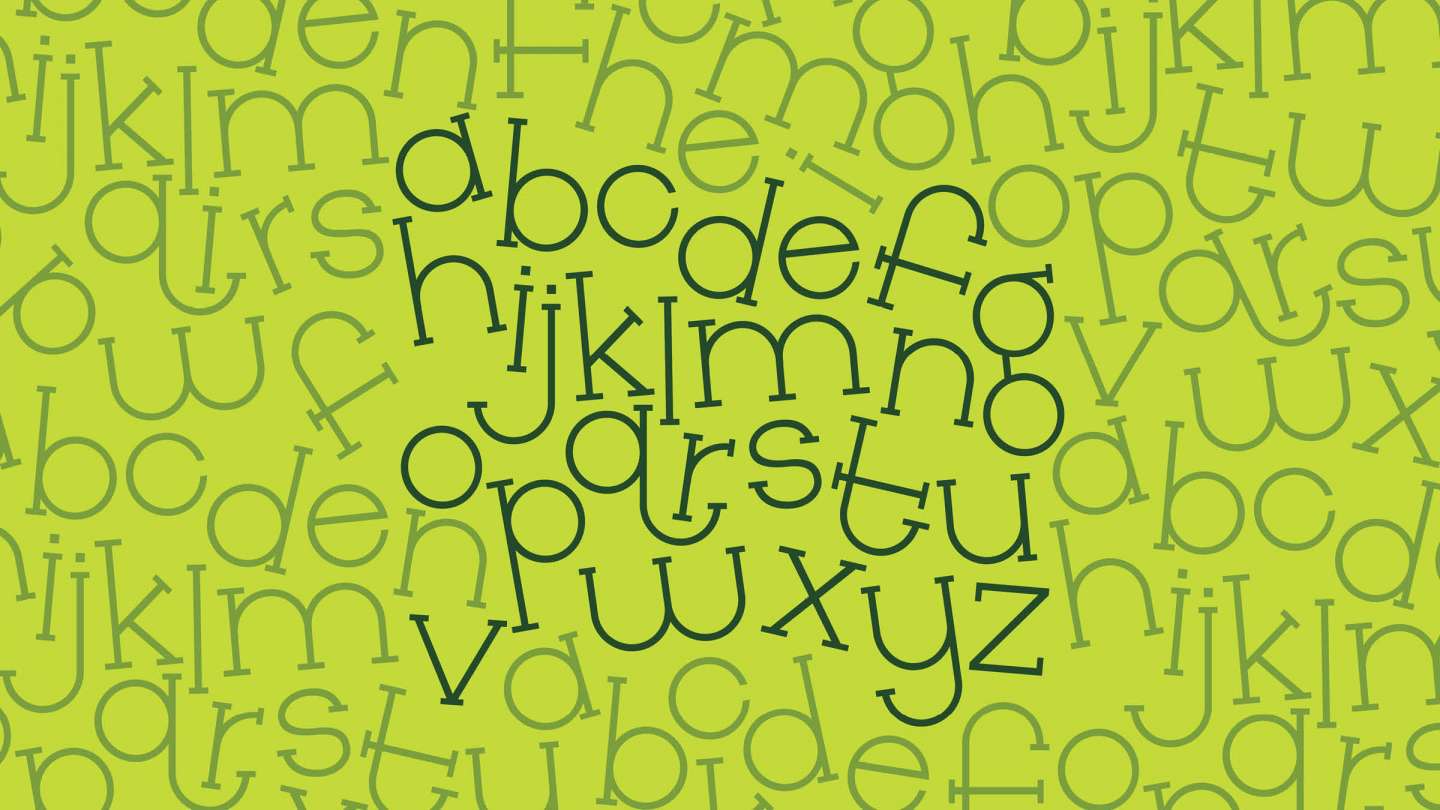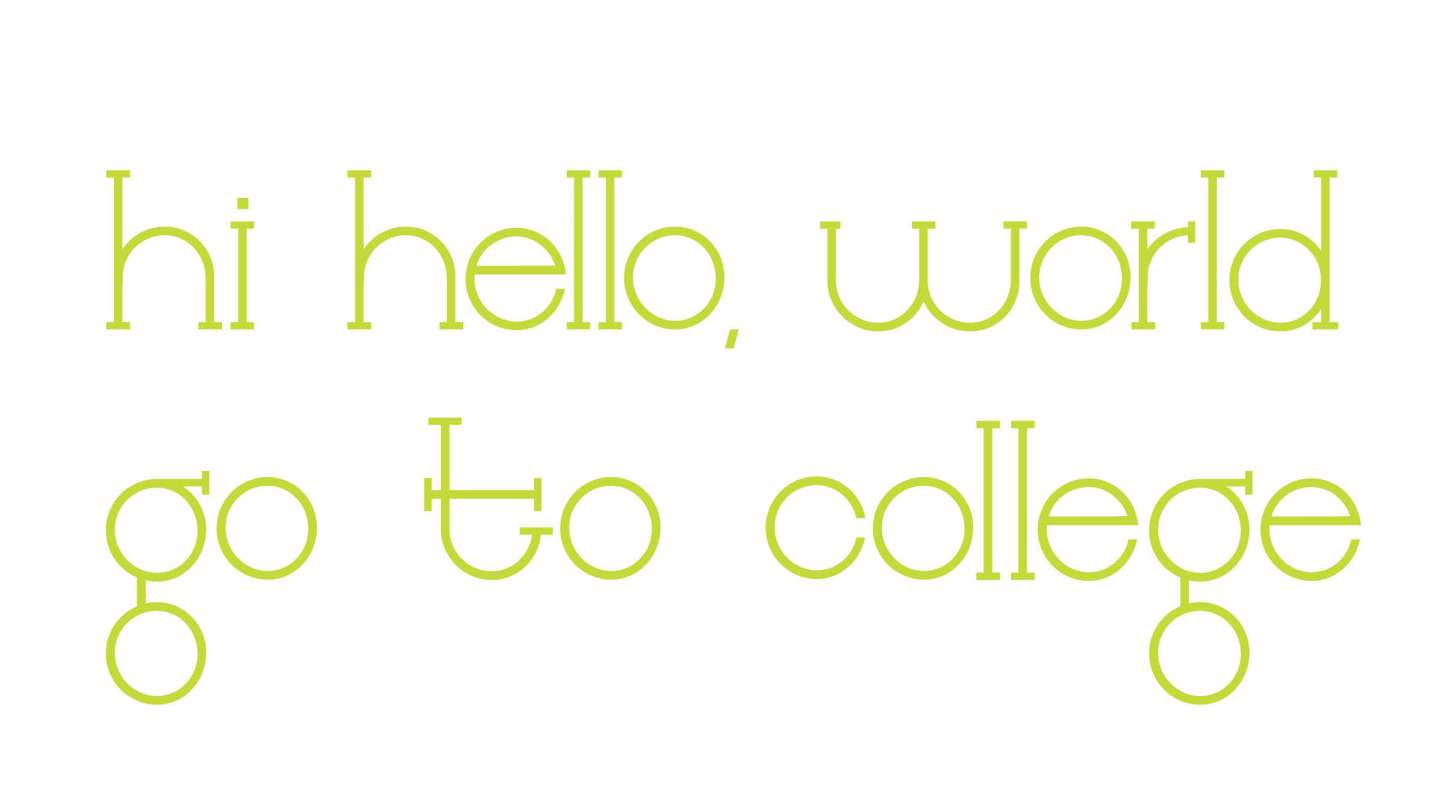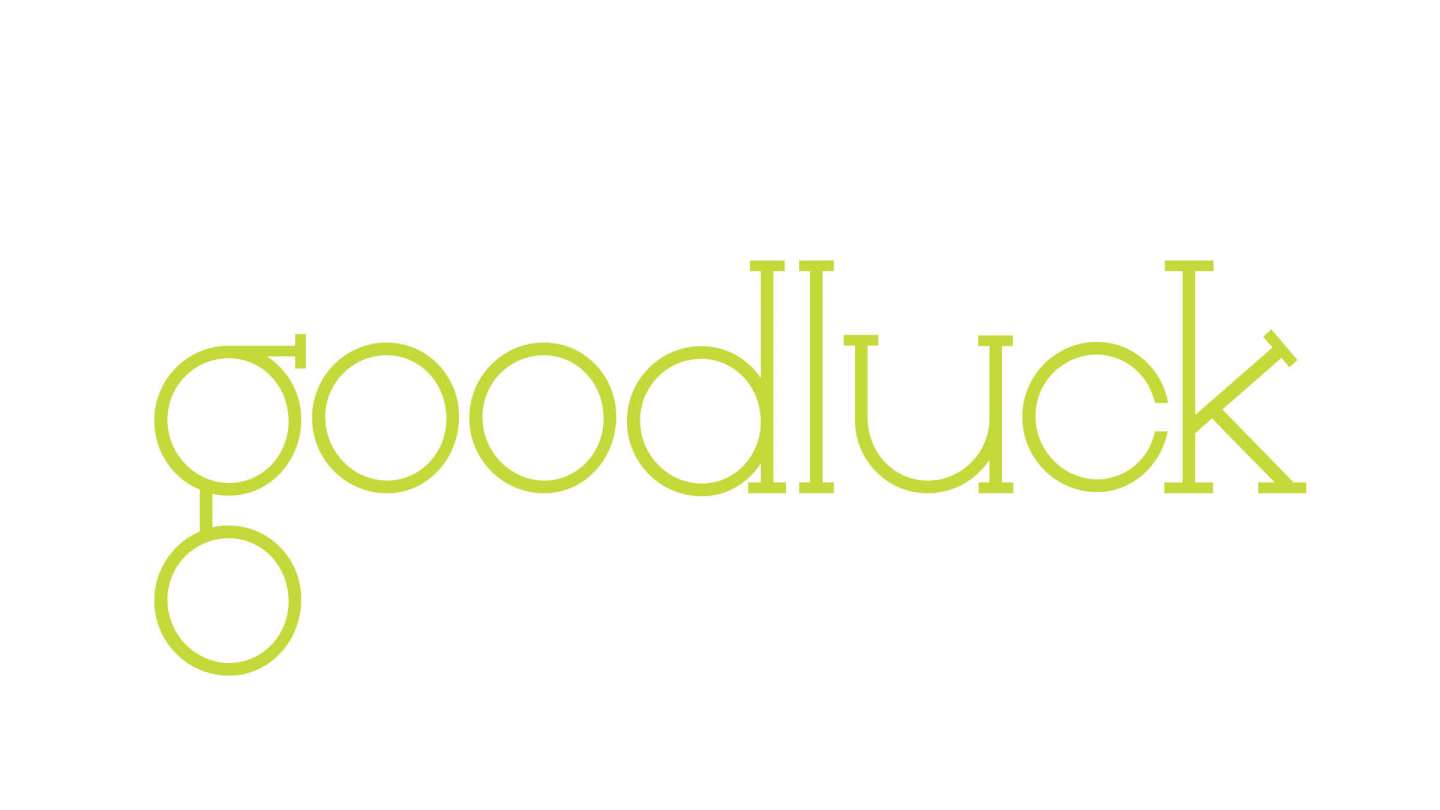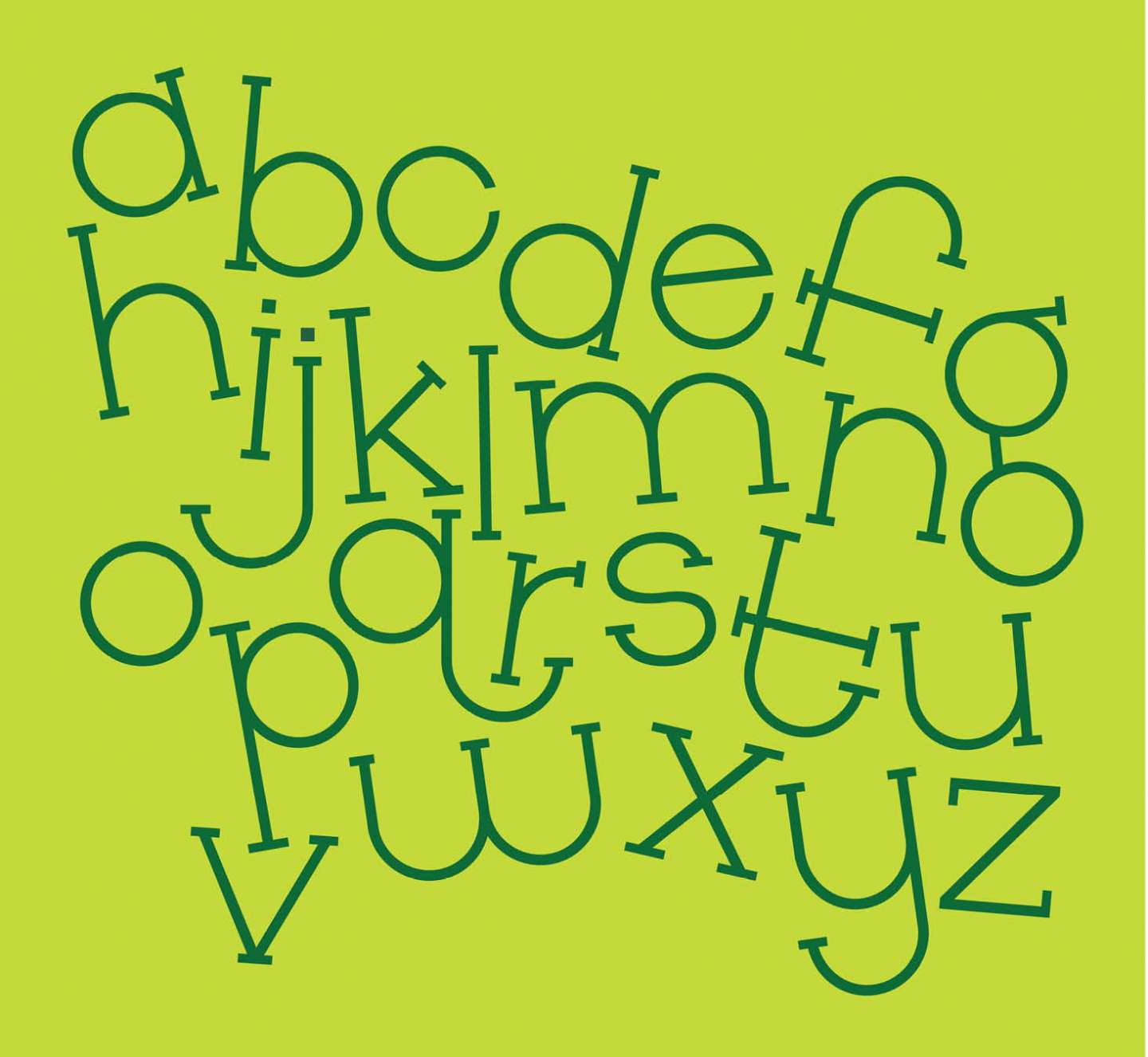
Goodluck is a custom, hand-sketched and digitized typeface composed entirely of lowercase characters. Built on circular forms, it features slab serifs and distinctive glyphs, including a double-story ‘g,’ and uniquely styled ‘t’ and ‘f.’ The design is further characterized by wide proportions in letters such as ‘w,’ ‘m,’ and ‘n,’ and thinner letters such as 'l' and i'.